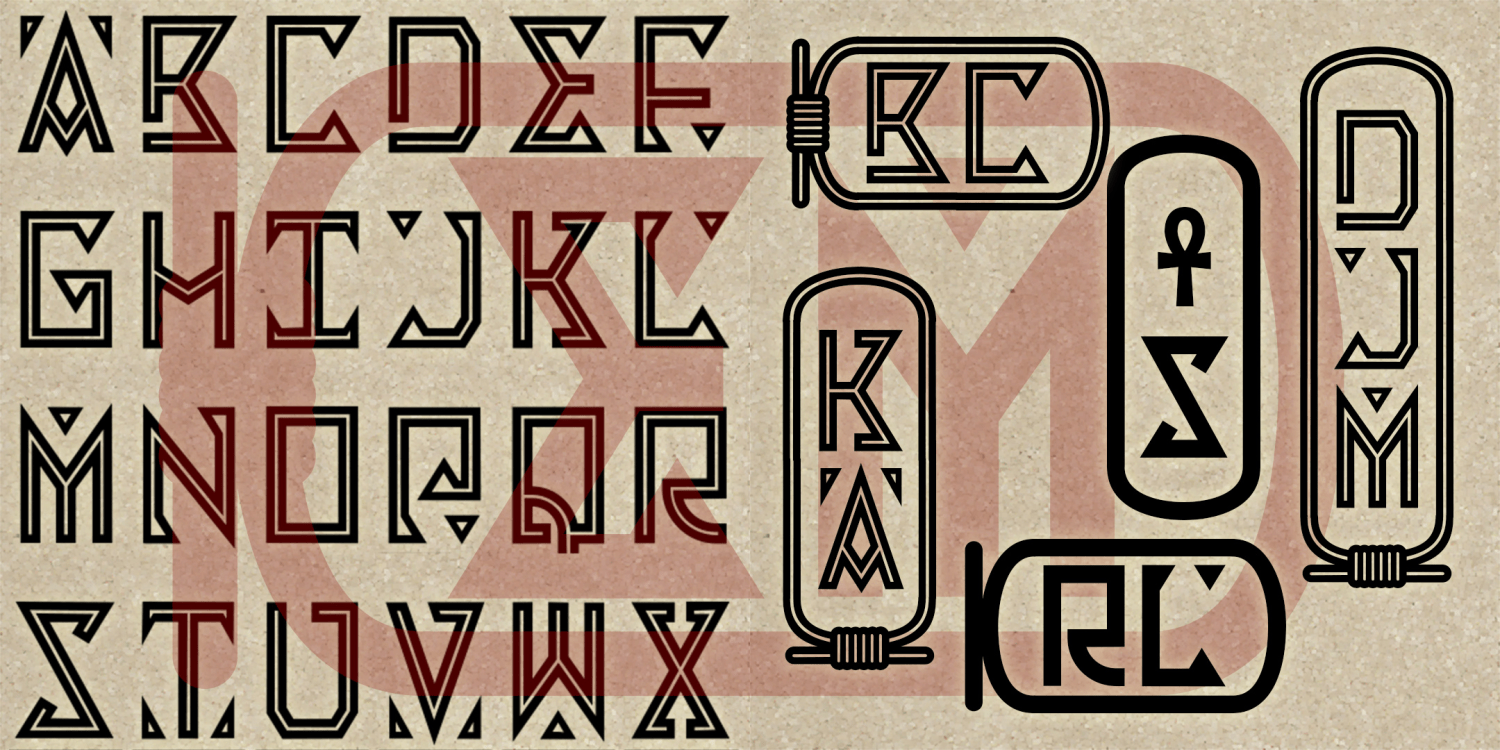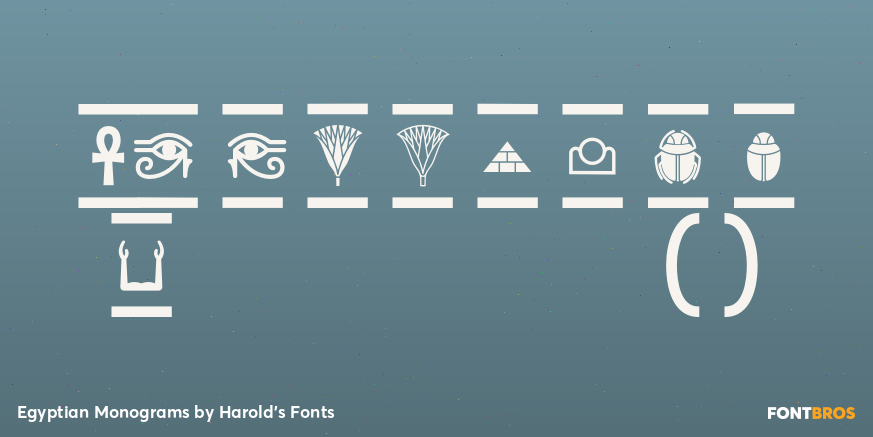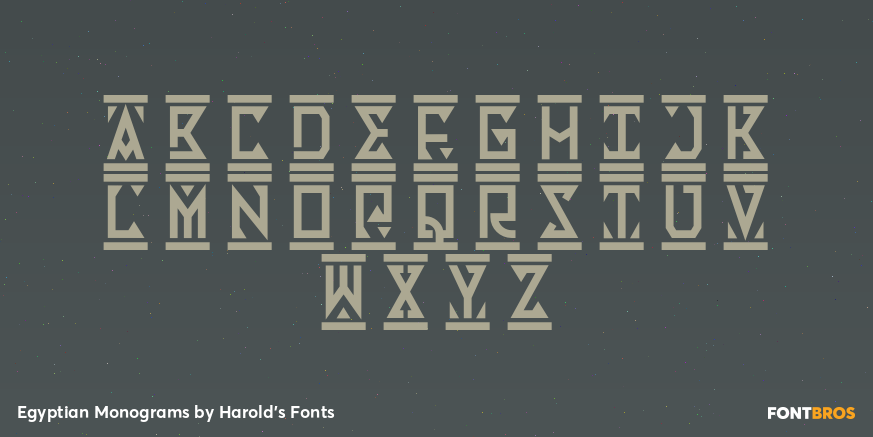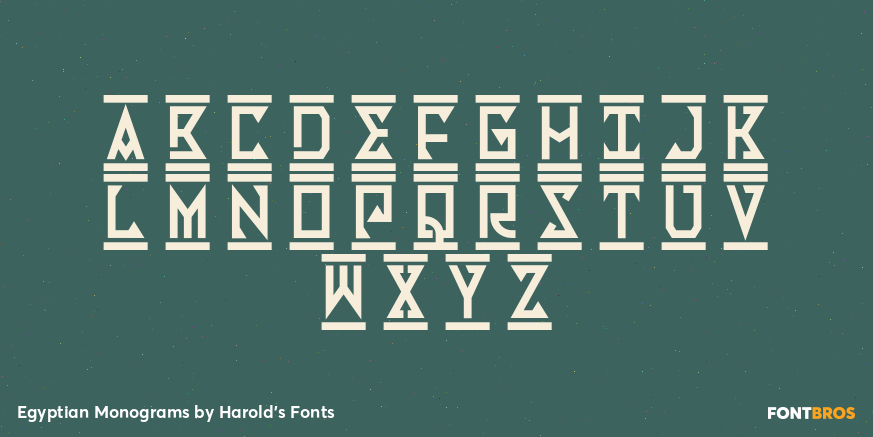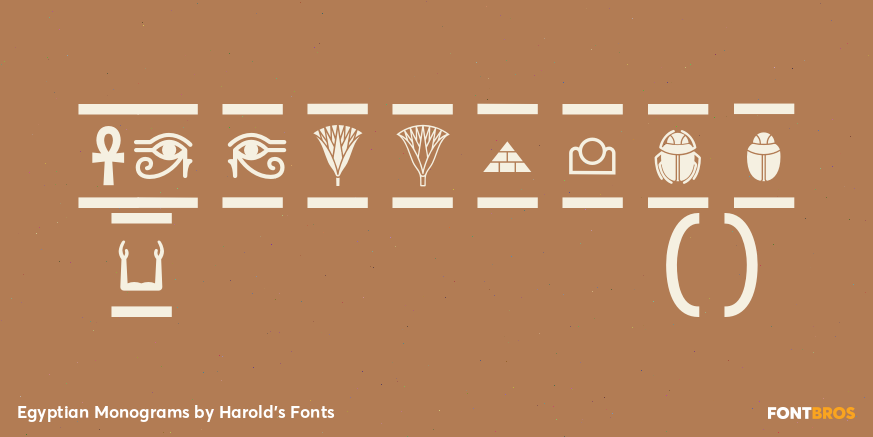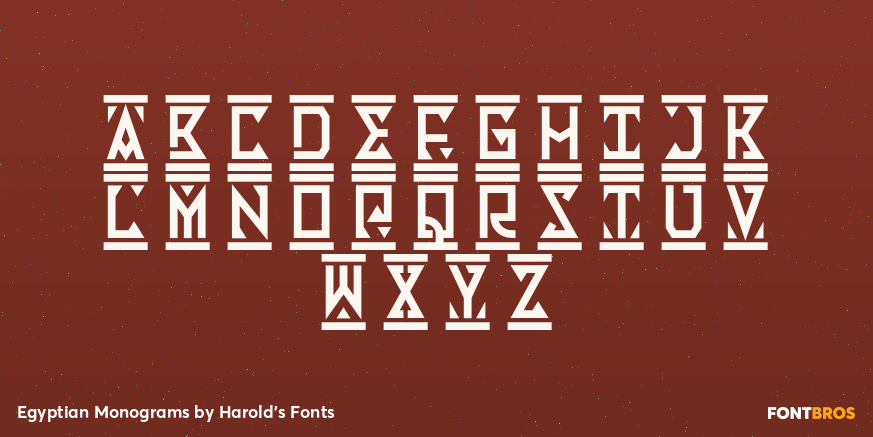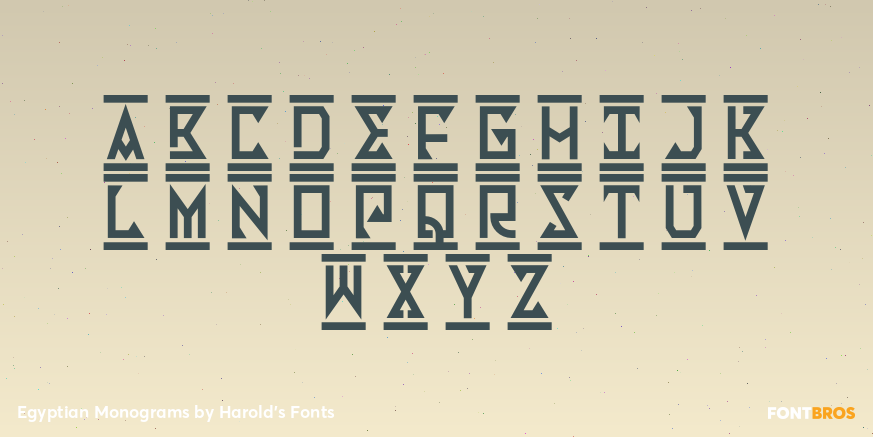
Egyptian Monograms
Egyptian Monograms is a set of 4 unique fonts that allows you to create custom monograms in a distinctive Egyptian Revival style. Your monograms can include any number of letters within ornamental cartouche frames; other options include vertical or horizontal format, inlines or solid, and a selection of hieroglyphic ornaments.